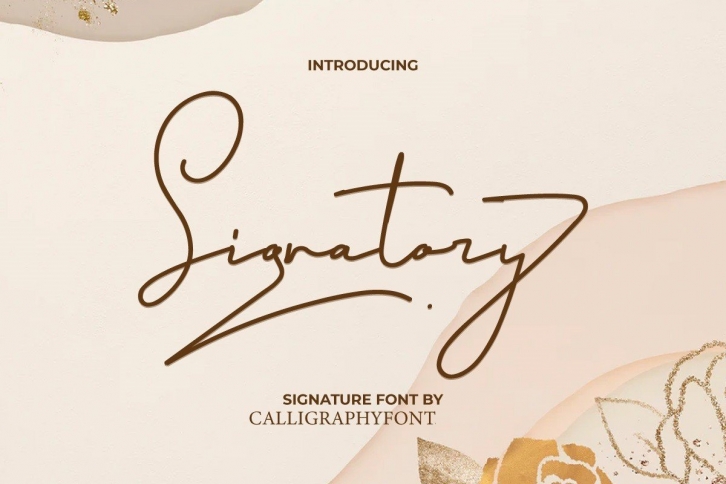
Signatory is a dazzling script font. This font is neatly crafted and highly detailed. Whatever the topic, this font will be a wonderful asset to your font library, as it has the potential to enhance any creation.